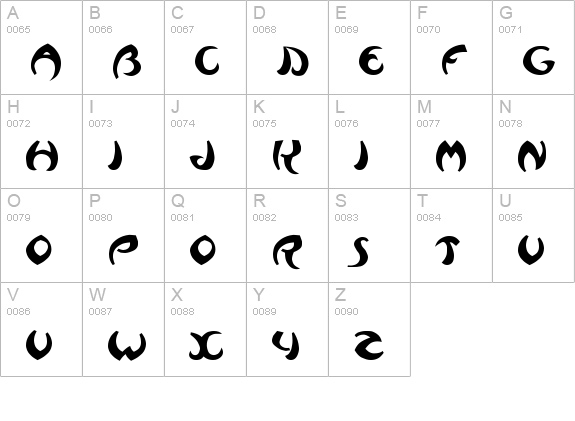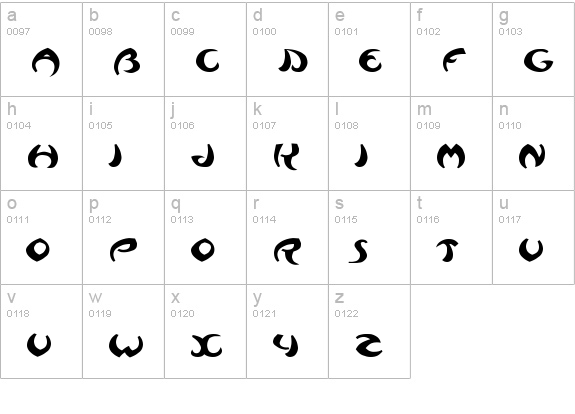
Waziri Font Details
Waziri font is a stunning typeface that effortlessly combines modern elegance with a touch of classic charm. With its clean lines and graceful curves, this font is perfect for adding a sophisticated and professional touch to any design project. What makes Waziri font even more appealing is that it is free! Yes, you read that right. This beautiful font is freely available to download at FontsMarket.com, ensuring that anyone can access and enjoy its beauty without any cost. Designed with versatility in mind, Waziri font is suitable for a wide range of design applications. Whether you're designing a logo, creating a magazine layout, or crafting invitations for a special event, this font will elevate your design to new heights. The attention to detail in Waziri font is truly remarkable. Each letter is meticulously crafted to ensure legibility and readability, even at smaller sizes. The balanced proportions and carefully spaced characters make this font a joy to work with, allowing for seamless integration into any design composition. Waziri font also offers a variety of weights and styles, providing endless possibilities for creative expression. From the sleek and bold Waziri Black to the delicate and refined Waziri Light, there is a variant for every design need. So why wait? Embrace the beauty of Waziri font and transform your designs into works of art. Download this incredible font for free at FontsMarket.com and let your creativity soar. With Waziri font, the possibilities are endless, and the results are guaranteed to leave a lasting impression.